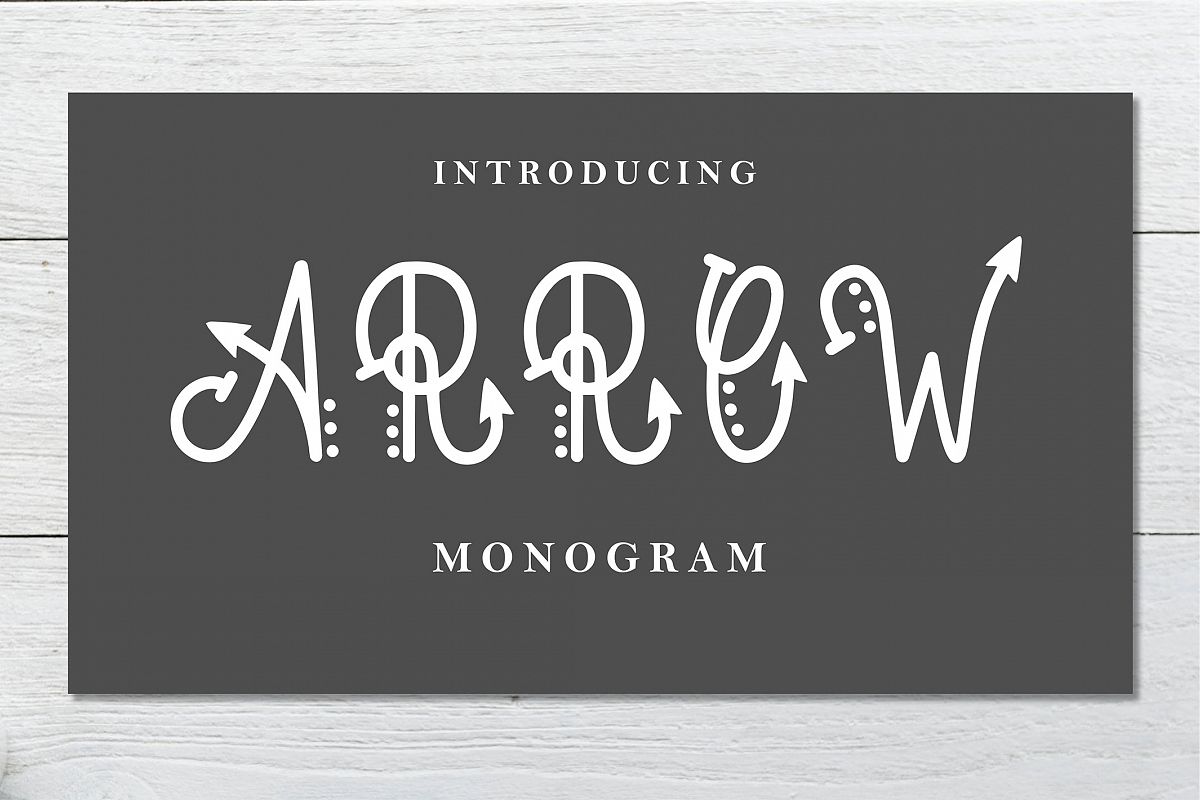
Arrow Monogram
The Arrow is a beautiful monogram display font. It includes elegant
letters which come in two styles; regular, and letters with dots. The
letters are clean and have a perfect readability.
Use this typeface to create multiple unique designs with a luxurious feel!